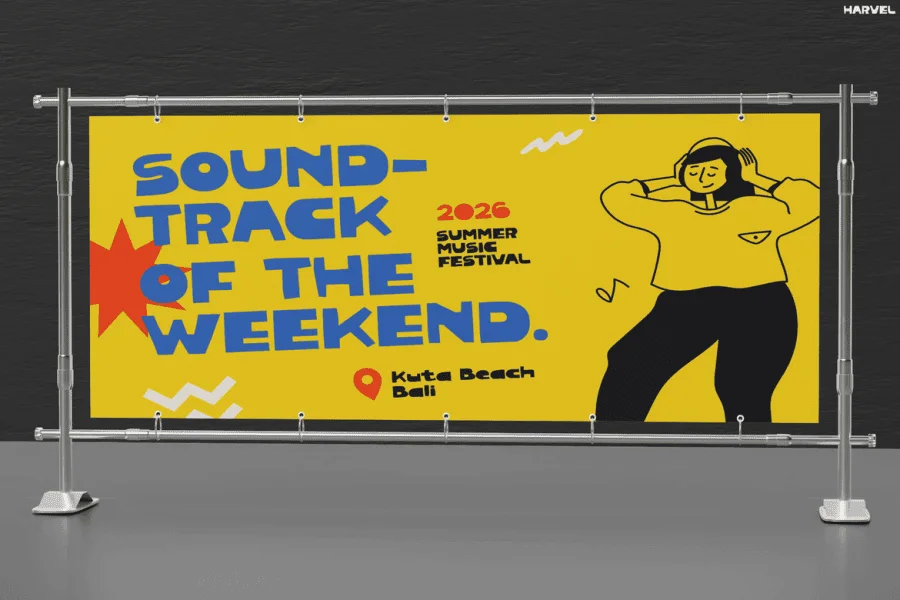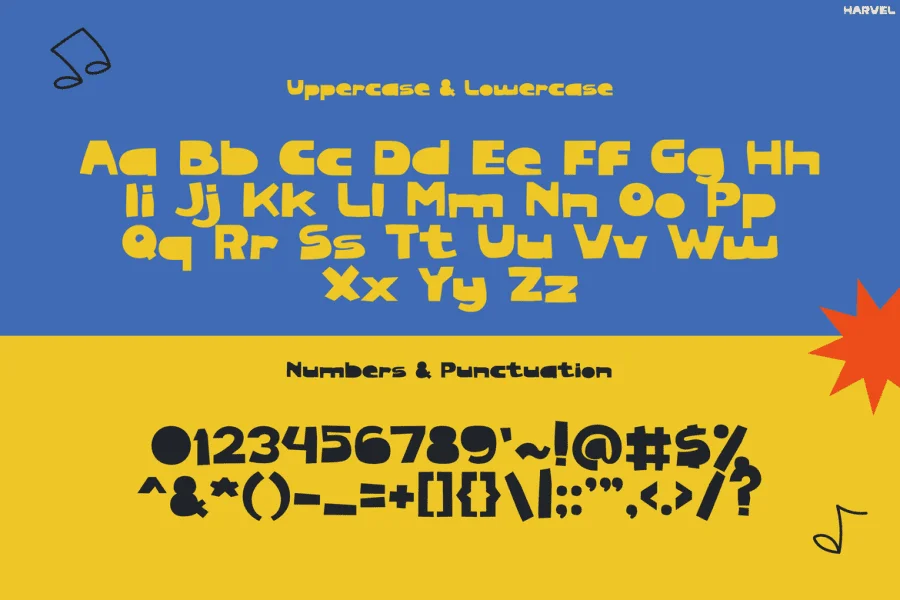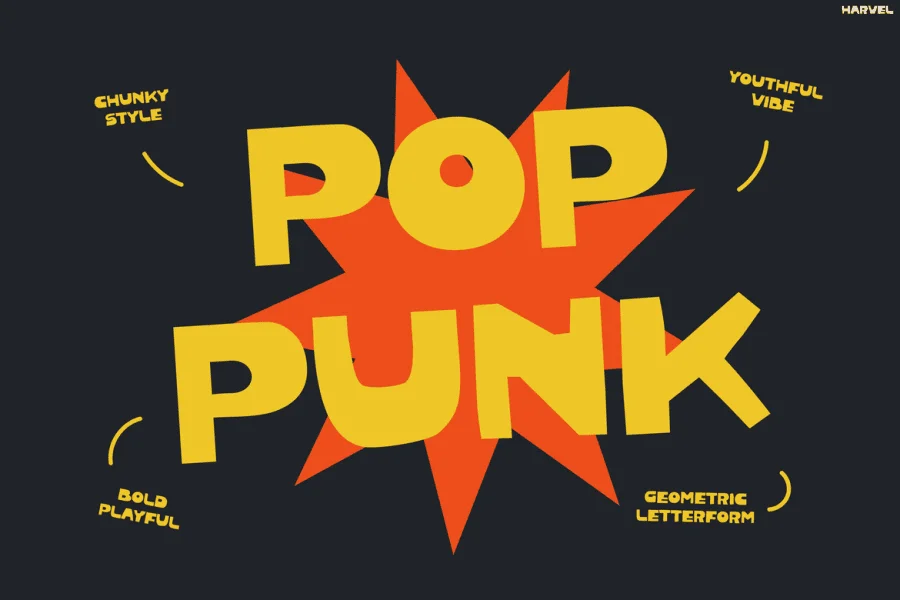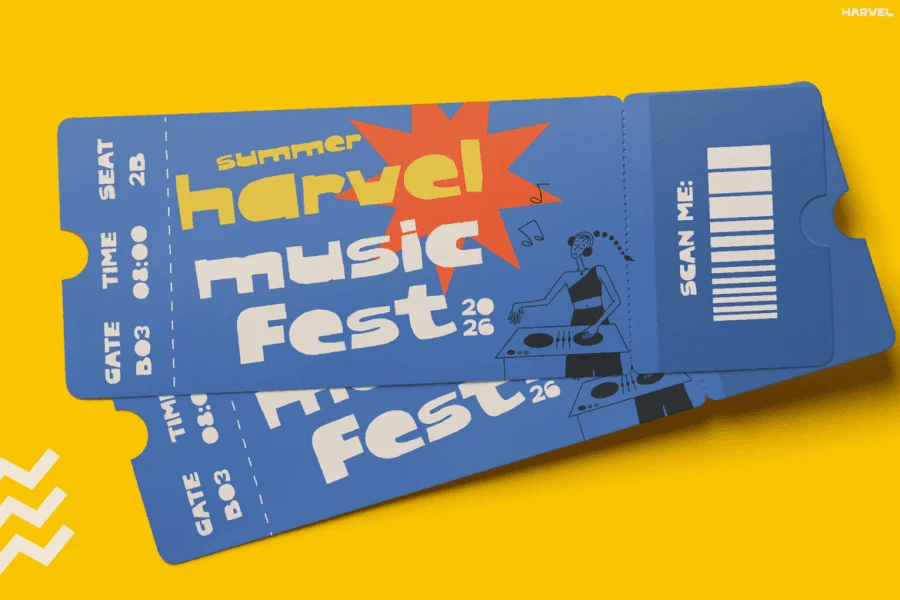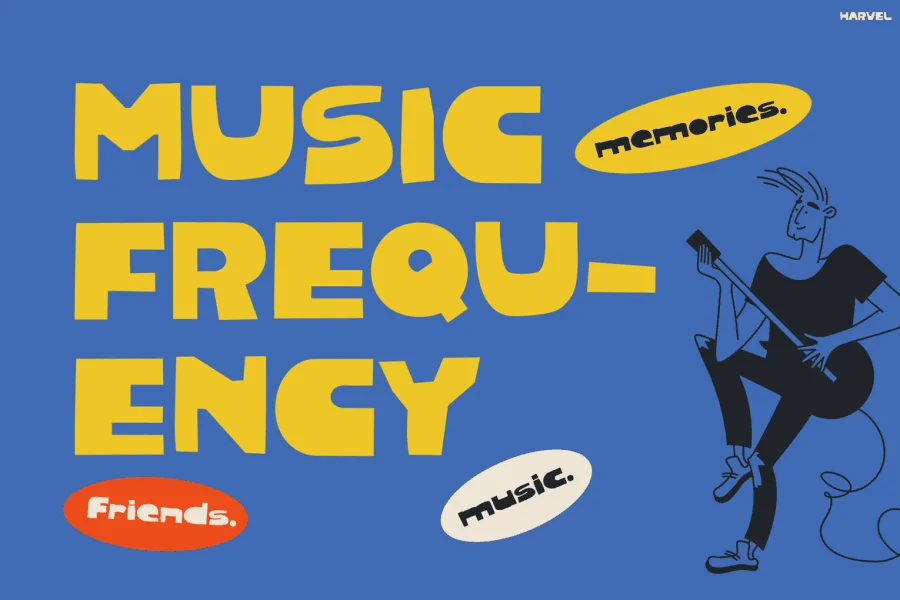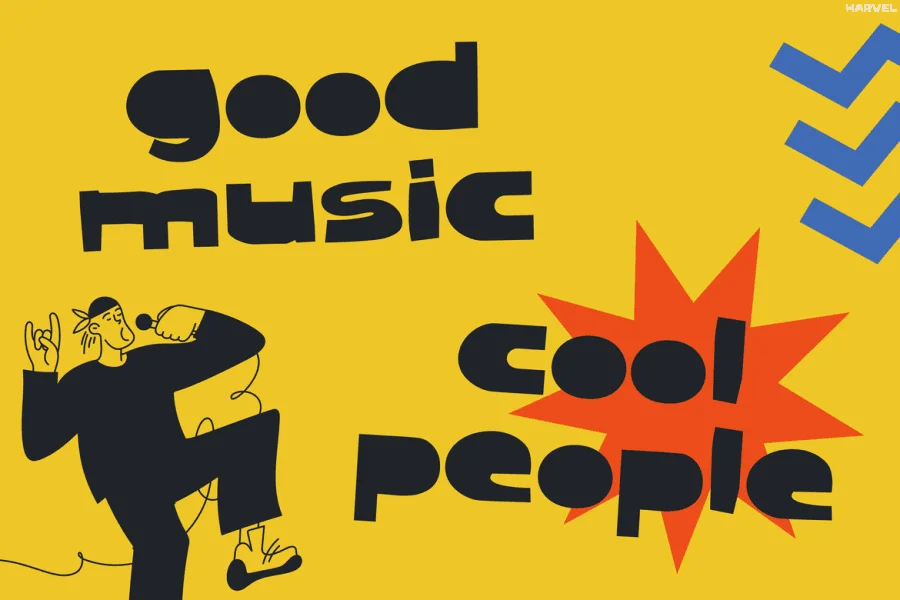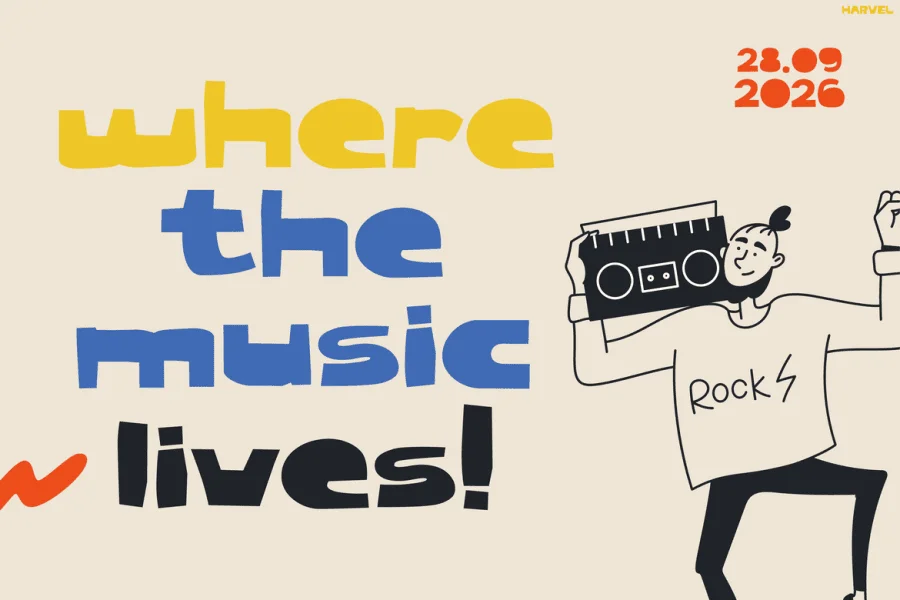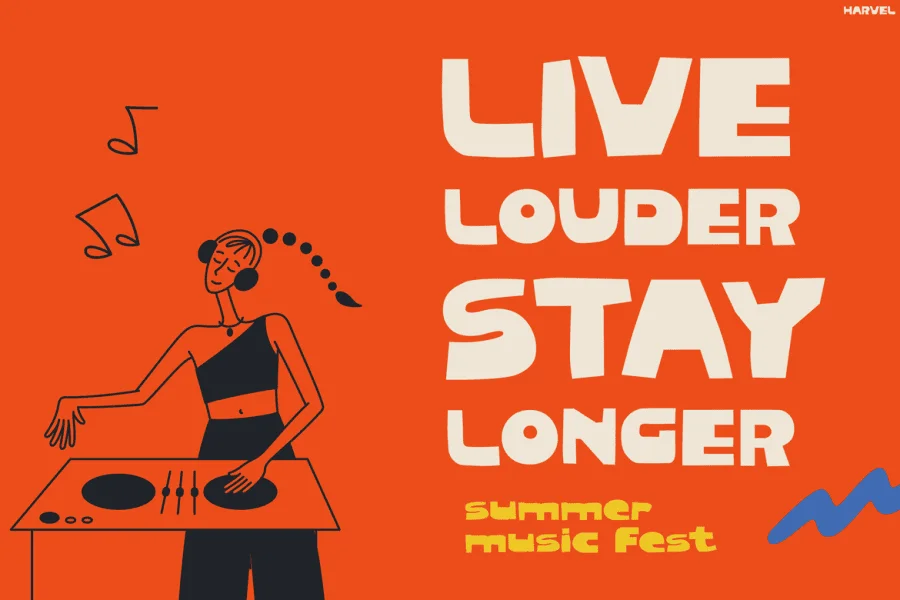
Harvel is a bold, playful display typeface that features an ultra-heavy, chunky sans-serif structure. Its design is characterized by thick, blocky letterforms with minimal counter spaces and a hand-cut, geometric quality. The strokes are solid and uniform, with blunt, planar terminals and sharp, angular cuts that contrast with rounded outer curves. This combination of heavy weight and irregular, blocky geometry gives the typeface a cool, youth-centric, and slightly rebellious rhythm with an urban edge.
With its high-impact presence and casual, hand-drawn feel, this typeface is exceptionally suited for expressive, music-focused branding, concert promotions, gig tickets, and merchandise design. It excels in large-scale applications such as music festivals, album covers, and energetic packaging layouts where a bold, pop-punk aesthetic is desired.